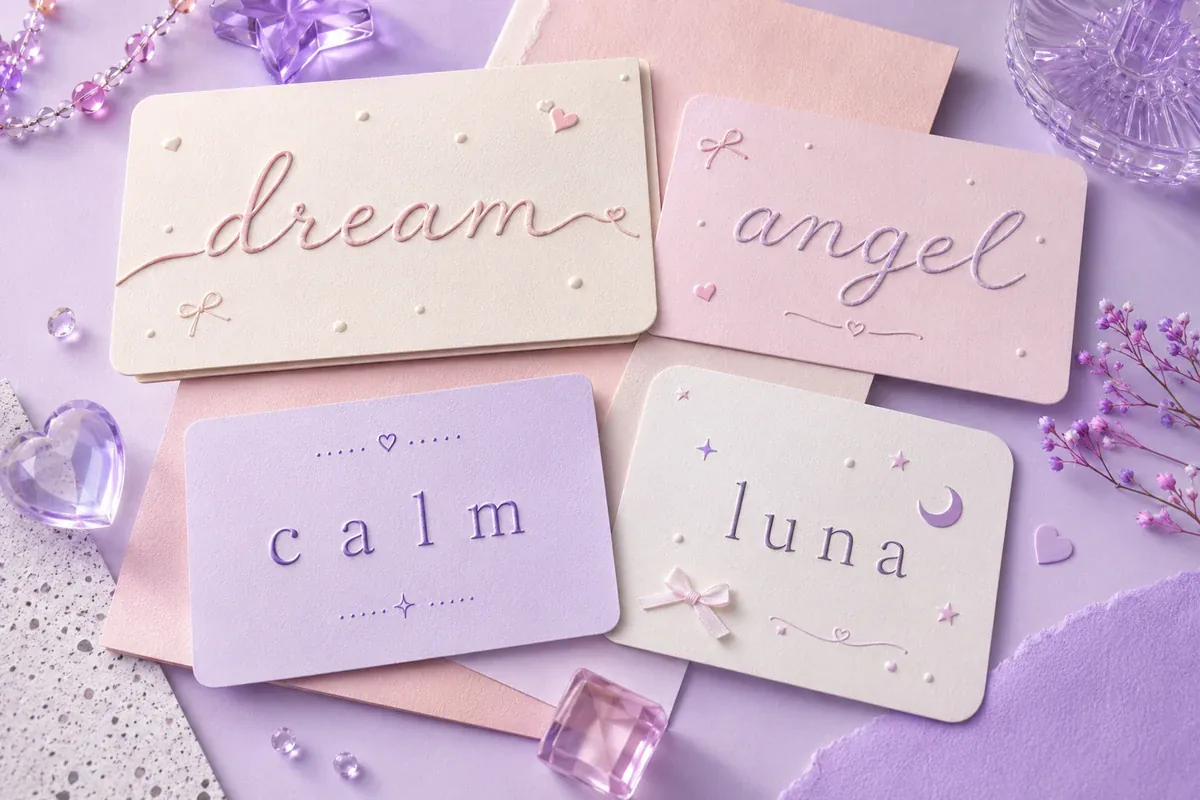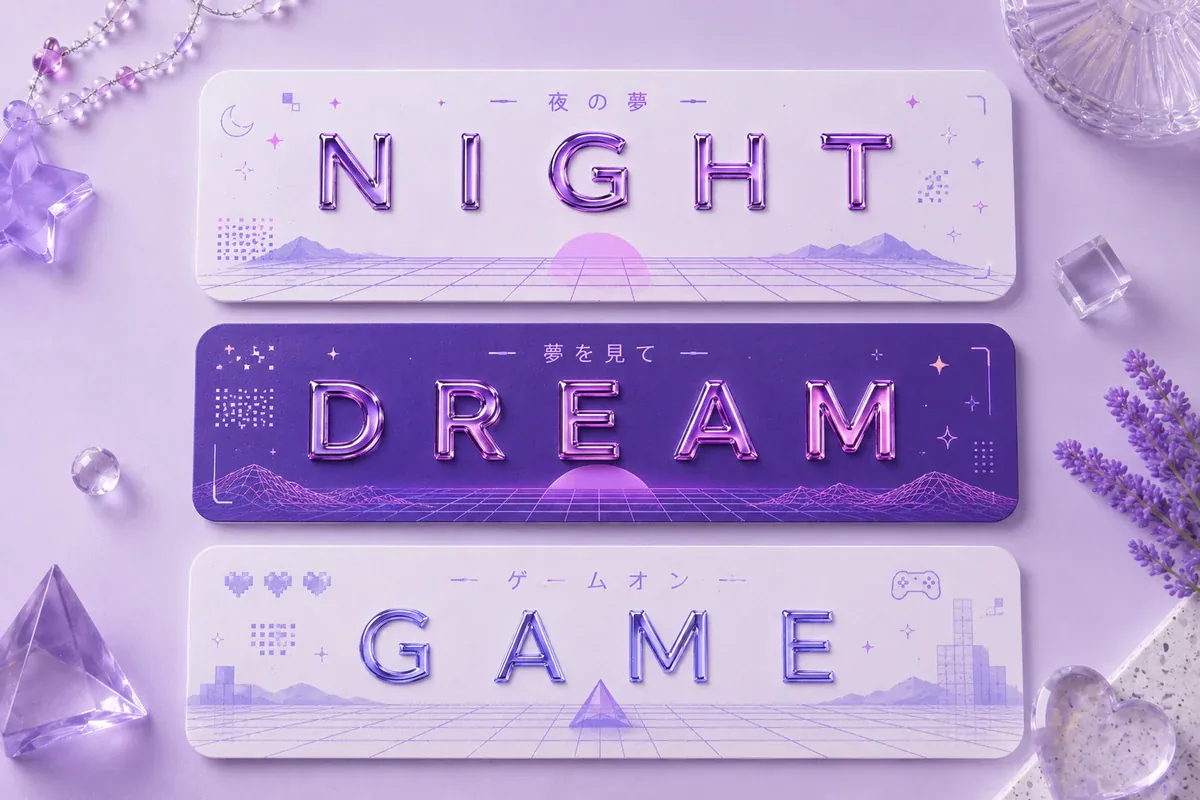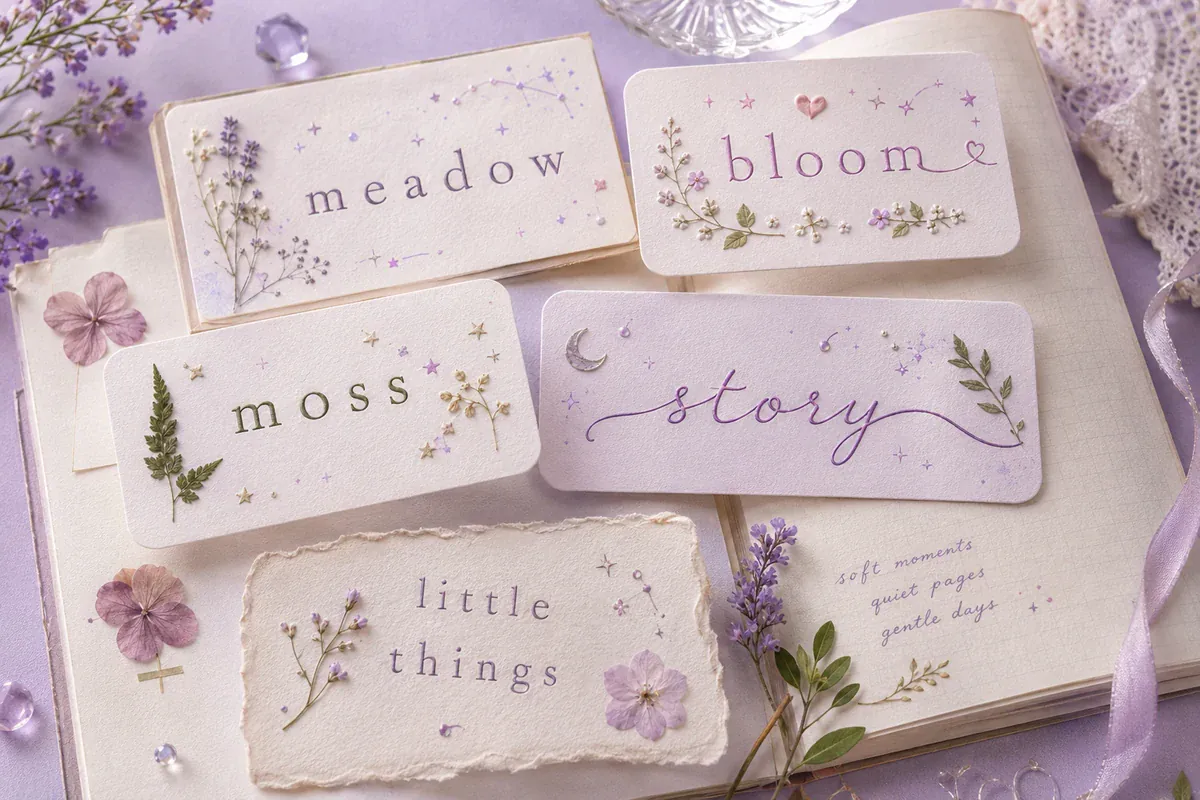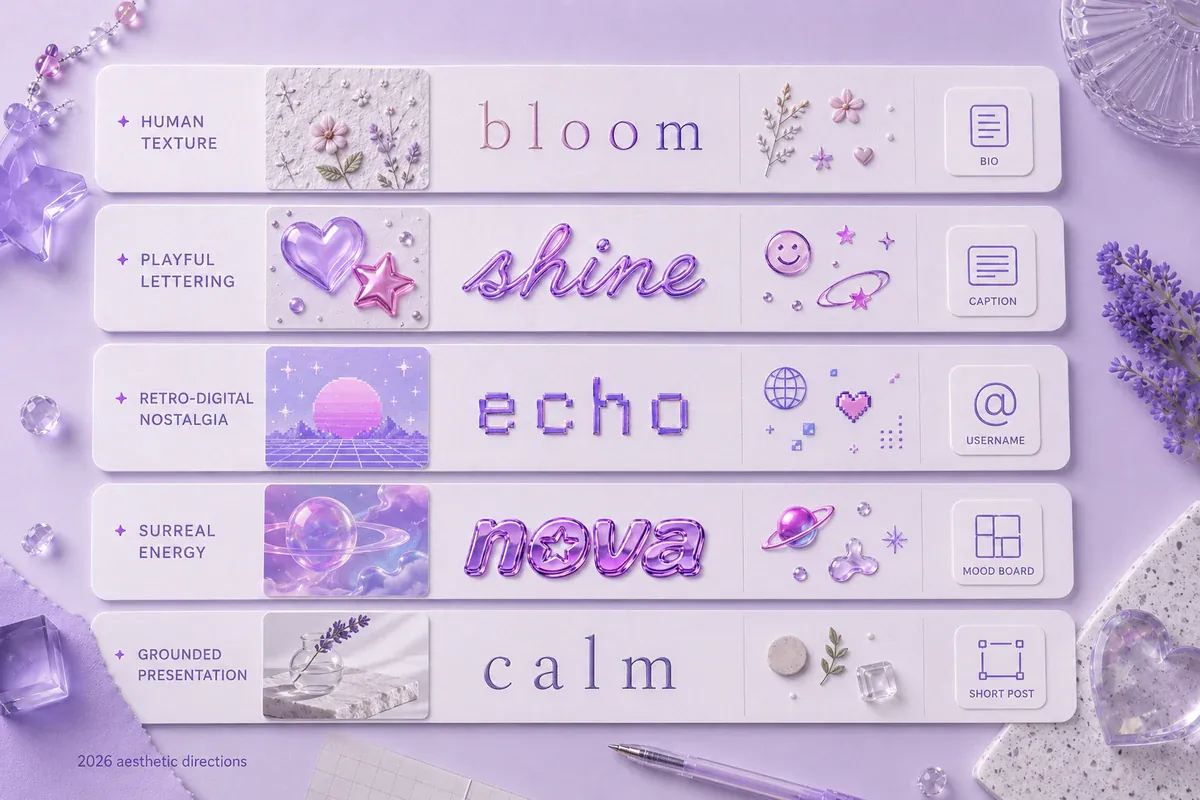
Aesthetic Text Styles: Vibes, Trends and Where They Work
Which aesthetic suits your profile — vaporwave, Y2K, soft girl or cottagecore — what is trending in 2026, and where each style survives a paste.
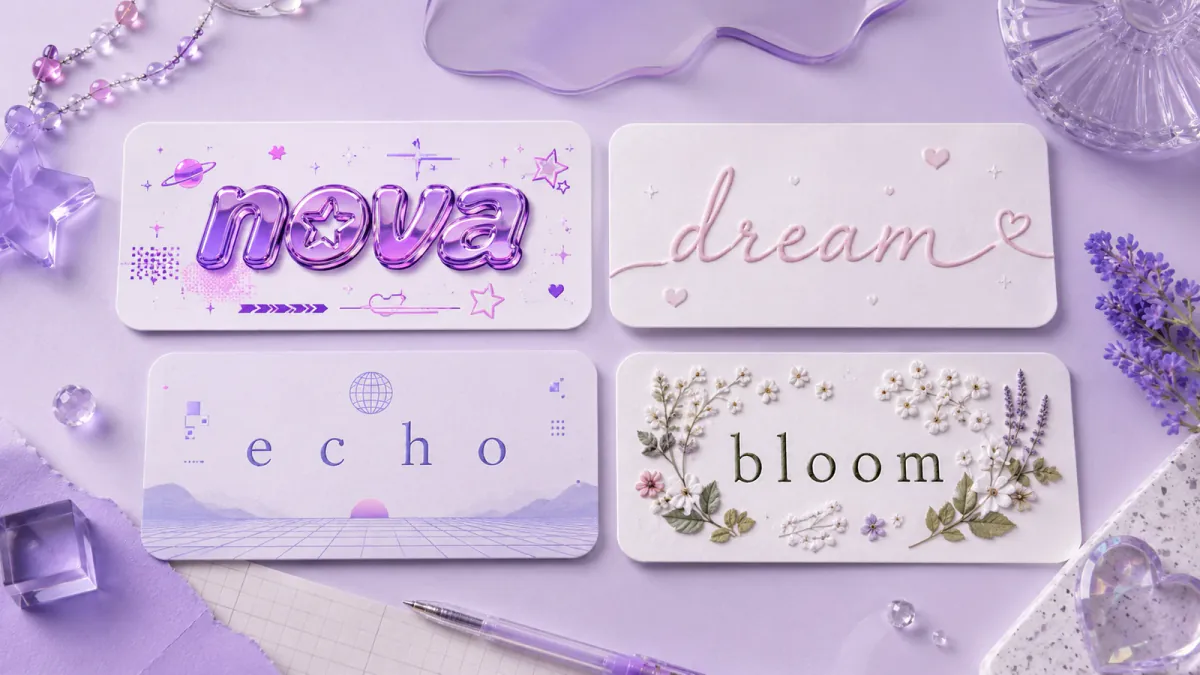
Aesthetic text styles are the looks people reach for in a bio, a caption or a display name — vaporwave, Y2K, soft girl, cottagecore — built from copy-and-paste Unicode rather than from a font. This guide is about telling them apart and knowing where each one survives. To make the text itself, open the Aesthetic Fonts generator, enter a short phrase, compare the results and test your choice in the app where you plan to use it.
Some results can support Y2K, soft, vaporwave or cottagecore-inspired looks. These are creative directions rather than dedicated filters, so choose according to the letters, spacing and symbols shown in each result.
How to Choose Between Aesthetic Styles
Generating the text is the quick part — type a phrase into the aesthetic font generator, which previews every style it has and copies the one you pick. Choosing between them is the part worth thinking about, and this guide is about that choice rather than the button.
Judge the complete phrase rather than one attractive letter. A decorative capital may look clear by itself but become difficult to read inside a long display name.
Example: Enter "Luna Notes" and compare a light script with a simple spaced version. The script may suit a profile heading, while the simpler result may be easier to scan in comments.
Why Aesthetic Text Can Be Pasted at All
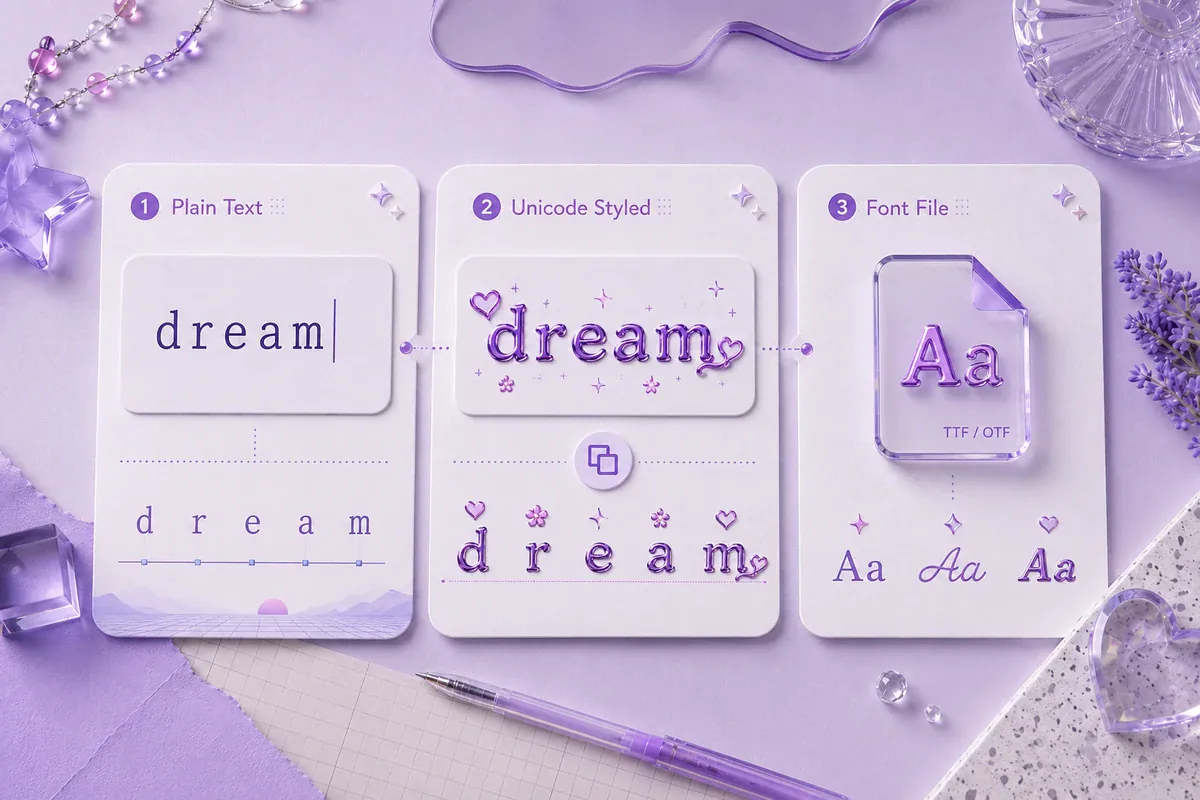
Aesthetic text is not a font. What a generator does is substitute ordinary letters for decorative characters, symbols or alternative Unicode forms — it installs nothing inside Instagram, TikTok, Discord or anywhere else.
That distinction explains why the text can be copied. A downloadable font file controls how lettering is drawn inside supported design software. An aesthetic Unicode text generator creates text from characters that can be pasted into many text fields.
Some results use fullwidth forms, mathematical alphanumeric symbols or characters from other supported sets. Fullwidth Latin letters create the wider appearance often associated with retro-digital text.
The receiving device still needs a font that contains each character. When support is missing, the character may appear as a box, blank space or replacement mark.
Styled text is most useful for short visual accents. Contact details, instructions and other essential wording are safer in ordinary text.
Choose an Aesthetic That Matches Your Vibe
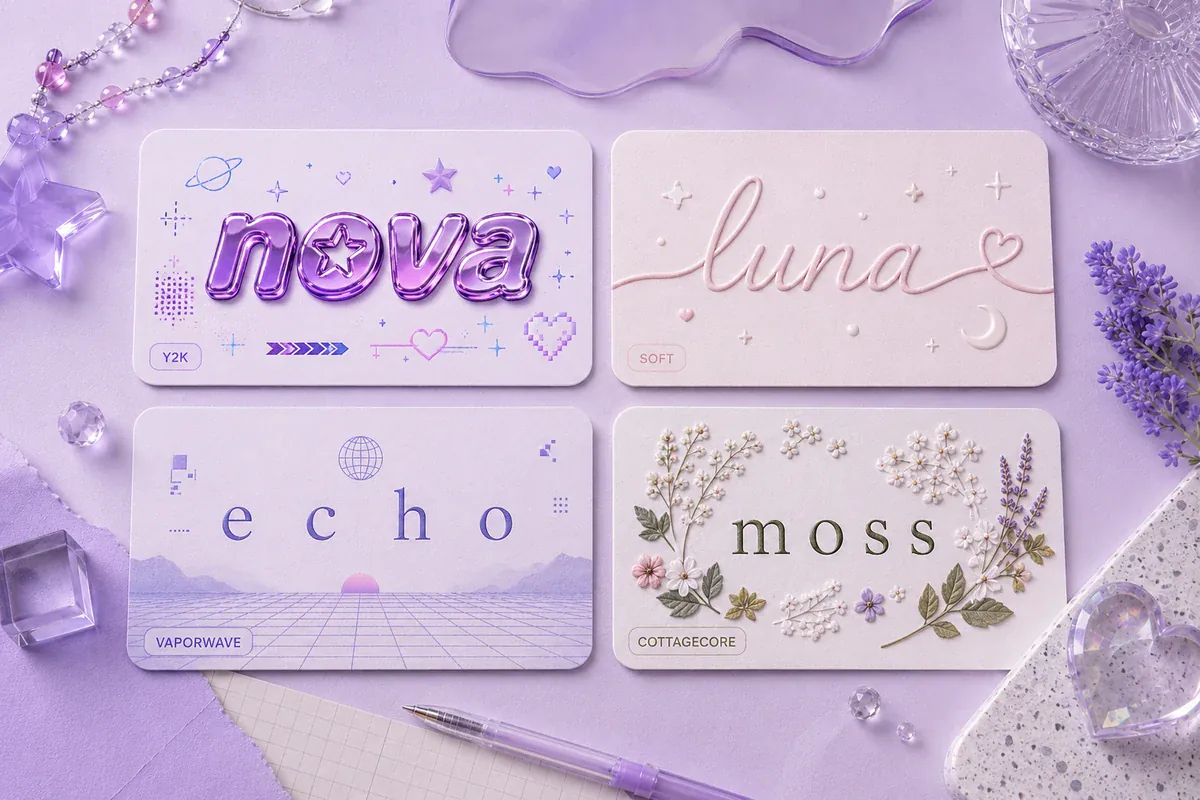
An aesthetic label describes a mood rather than one fixed alphabet. The same text may feel soft when paired with a small heart or more Y2K-inspired when framed with stars and digital symbols.
| Aesthetic direction | Typical mood | Text treatment to try | Suitable uses |
|---|---|---|---|
| Y2K | Playful, futuristic and nostalgic | Rounded, bold or cyber-influenced characters | Usernames, music posts and gaming profiles |
| Soft | Calm, delicate and understated | Lowercase text, light script and subtle symbols | Bios, journals and lifestyle captions |
| Vaporwave | Retro-digital and surreal | Fullwidth characters and visible spacing | Playlist names, art pages and gaming posts |
| Cottagecore | Bookish, natural and handmade | Gentle script and botanical symbols | Reading, gardening and cozy lifestyle profiles |
These categories can help you browse the existing results, but they are not promises of dedicated style controls.
Y2K-Inspired Text Ideas
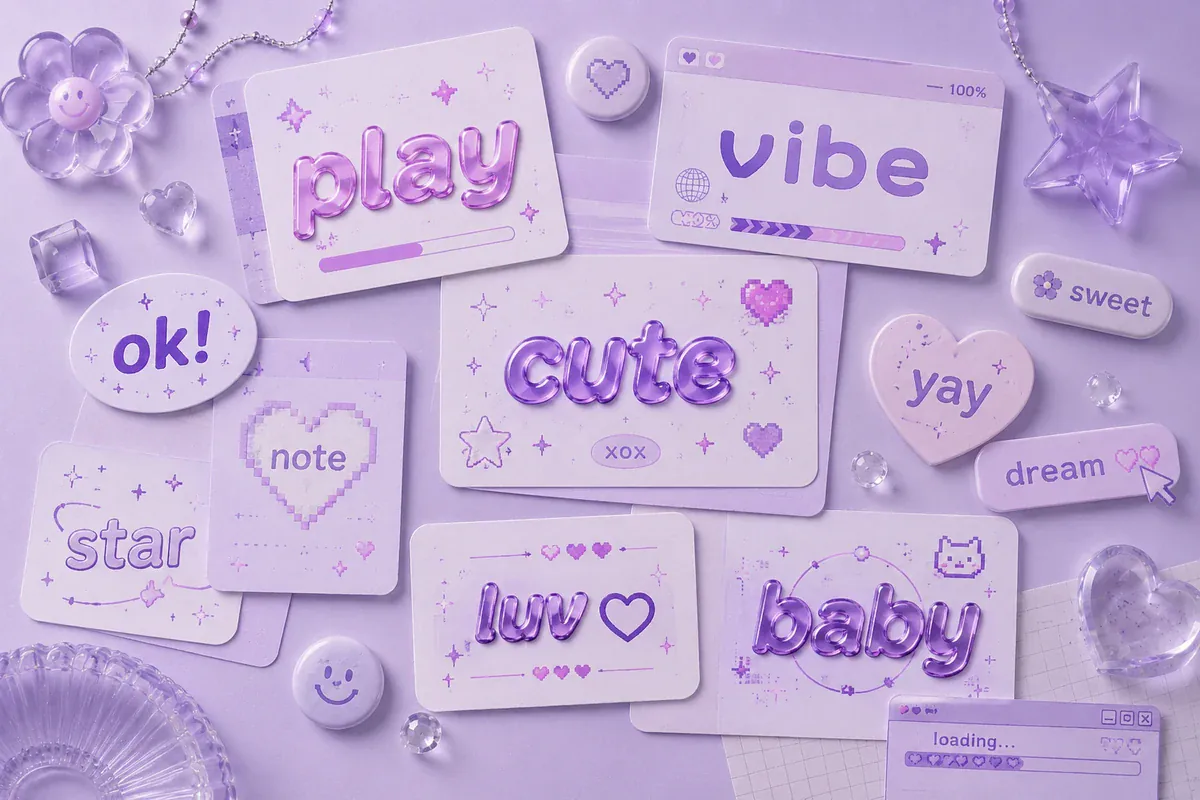
A Y2K-inspired text direction takes cues from early digital interfaces, playful technology imagery and turn-of-the-millennium pop graphics. Look for rounded characters, unusual capitals and small marks such as stars, hearts or digital-style symbols.
Create Your Aesthetic Text
The aesthetic font generator gives you a quick way to compare soft, Y2K, vaporwave and cottagecore-inspired text ideas without installing a font file. Start with a short phrase, test several results and choose the version that stays readable in its final location.
Open the Aesthetic Fonts generator, enter your text, compare the available styles and copy the one that fits your username, bio, caption or creative post.